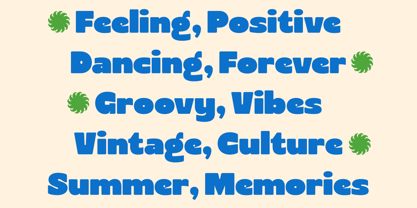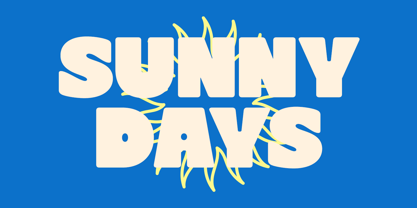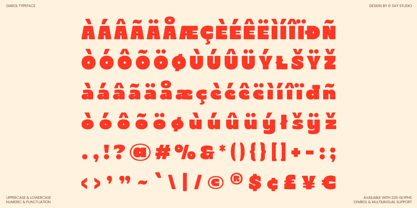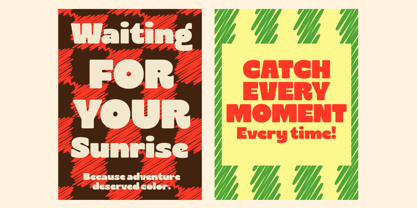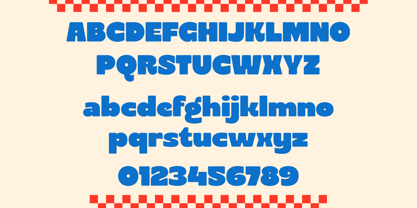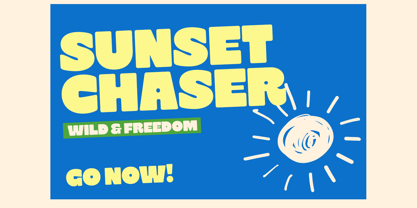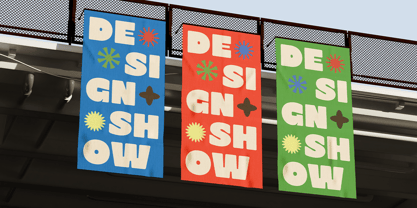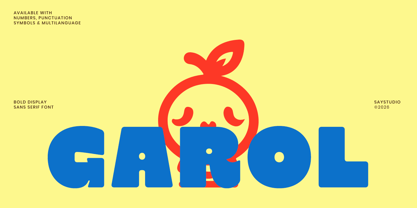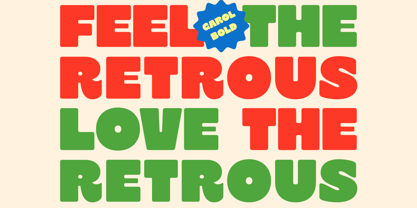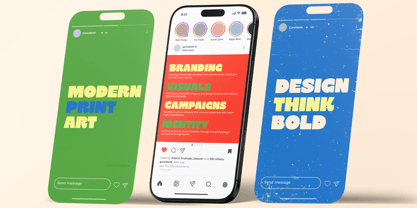
Garol
by Say Studio
Garol is a bold retro display font that brings playful energy and nostalgic charm into modern design projects. Featuring chunky letterforms, soft rounded corners, and a cheerful vintage personality, this typeface instantly captures attention while maintaining excellent readability. Its expressive shapes create a friendly and memorable visual presence, making every headline feel fun, confident, and full of character.
Inspired by retro signage, vintage packaging, and colorful pop culture aesthetics, Garol combines classic retro influences with a contemporary twist. The font includes uppercase, lowercase, numerals, punctuation, multilingual support, and unique stylistic details that add warmth and personality to your typography. Whether used in large headlines or standout branding elements, Garol delivers a bold visual impact that feels both nostalgic and fresh.
Perfect for branding, packaging, food products, children's projects, posters, social media graphics, editorial layouts, merchandise, advertising campaigns, logos, magazines, creative studios, and playful visual identities. Garol is designed for creators who want their work to feel vibrant, approachable, and unforgettable.
Features :
• Regular & Italic
• Uppercase & Lowercase
• Numbers & Punctuation
• Multilingual Support
Designers: Mussyayin
Foundry: Say Studio